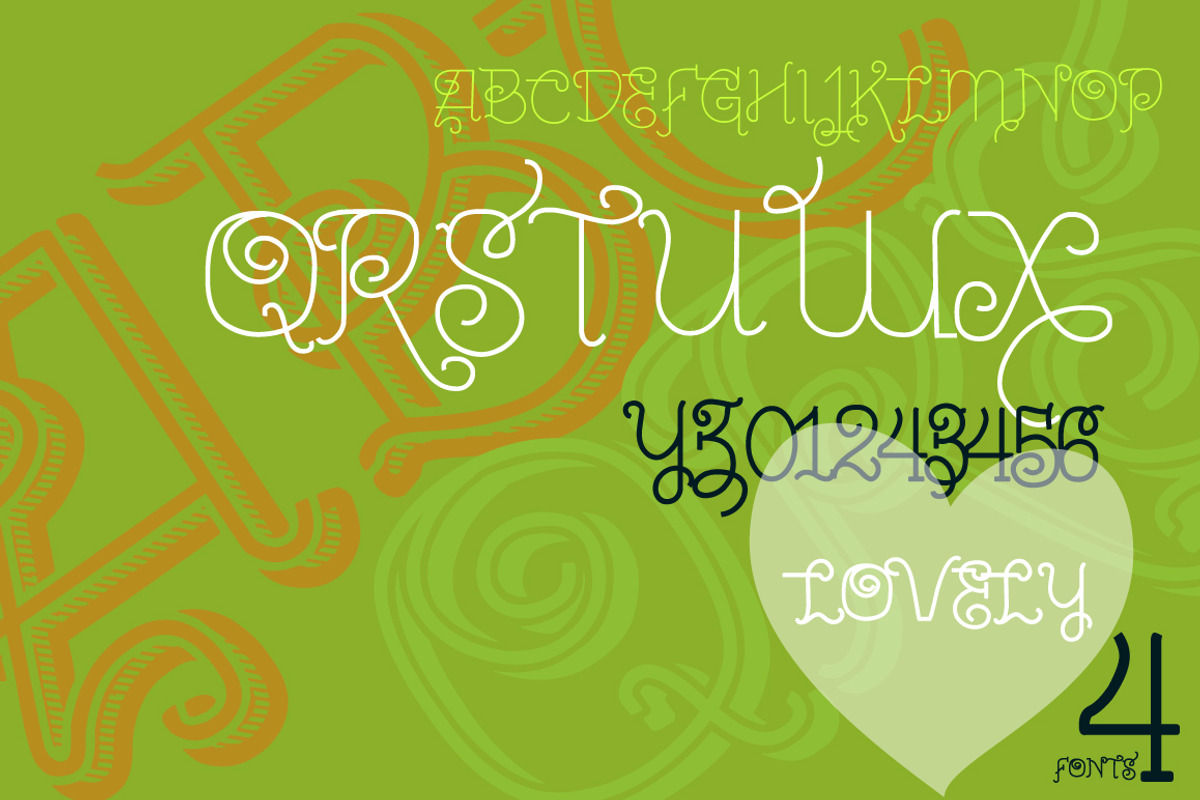
Lovely Font By Vtks
Lovely Font By Vtks by VTKS, a Font by vtks design is a font selected for branding, posters, packaging, typography.
Lovely Font By Vtks by VTKS, a Font by vtks design fits naturally into Branding, posters, packaging, typography.